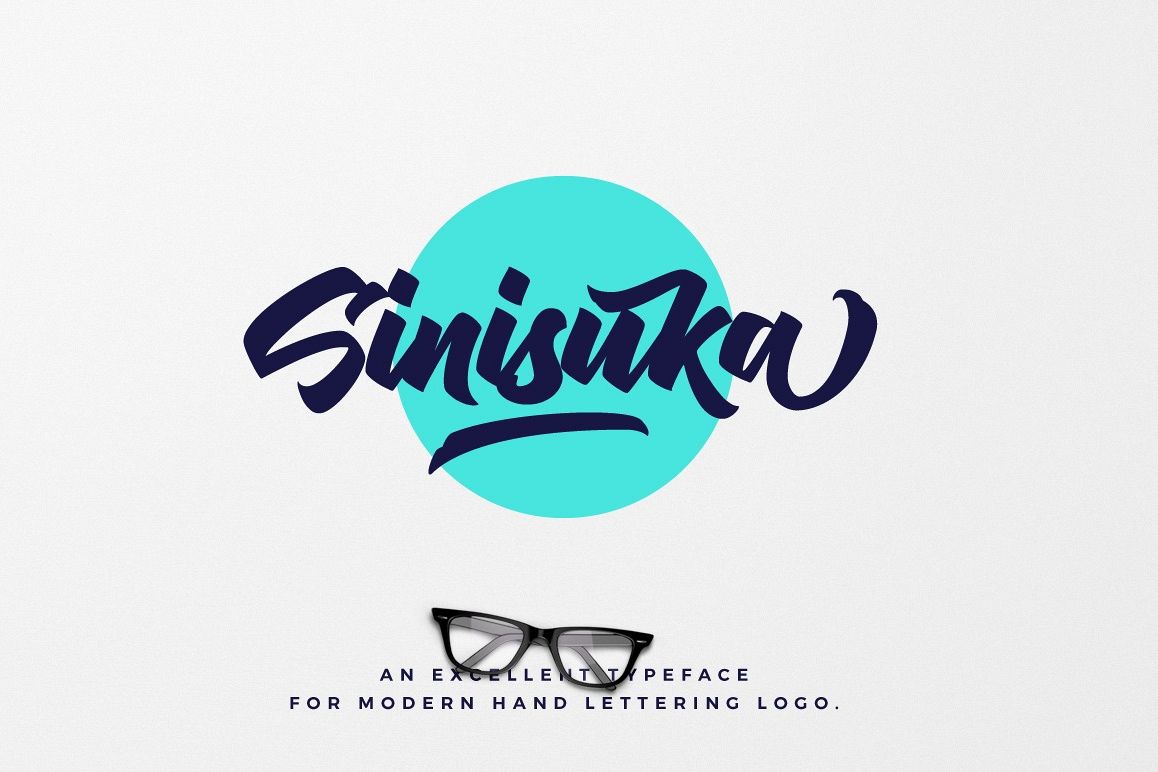
Sinisuka an excellent typeface for modern hand lettering logo designs.
and suitable for any design needs, branding, modern advertising design, Art Quote, Book/Cover Title, special events, custom mug, pillow, t-shirts, any brush lettering needs and more.
Sinisuka Typeface comes with upper and lowercase Standard Characters, Punctuation, Numerals. And other Glyphs variation of the OpenType features such as Standard Ligature, Stylistic Alternate and Stylistic Set (ss01, ss02, ss03, ss04), and Swash. Accessible in the Adobe Illustrator and adobe indesign Glyphs panel, or under Stylistic Alternates in the Adobe Photoshop OpenType menu.